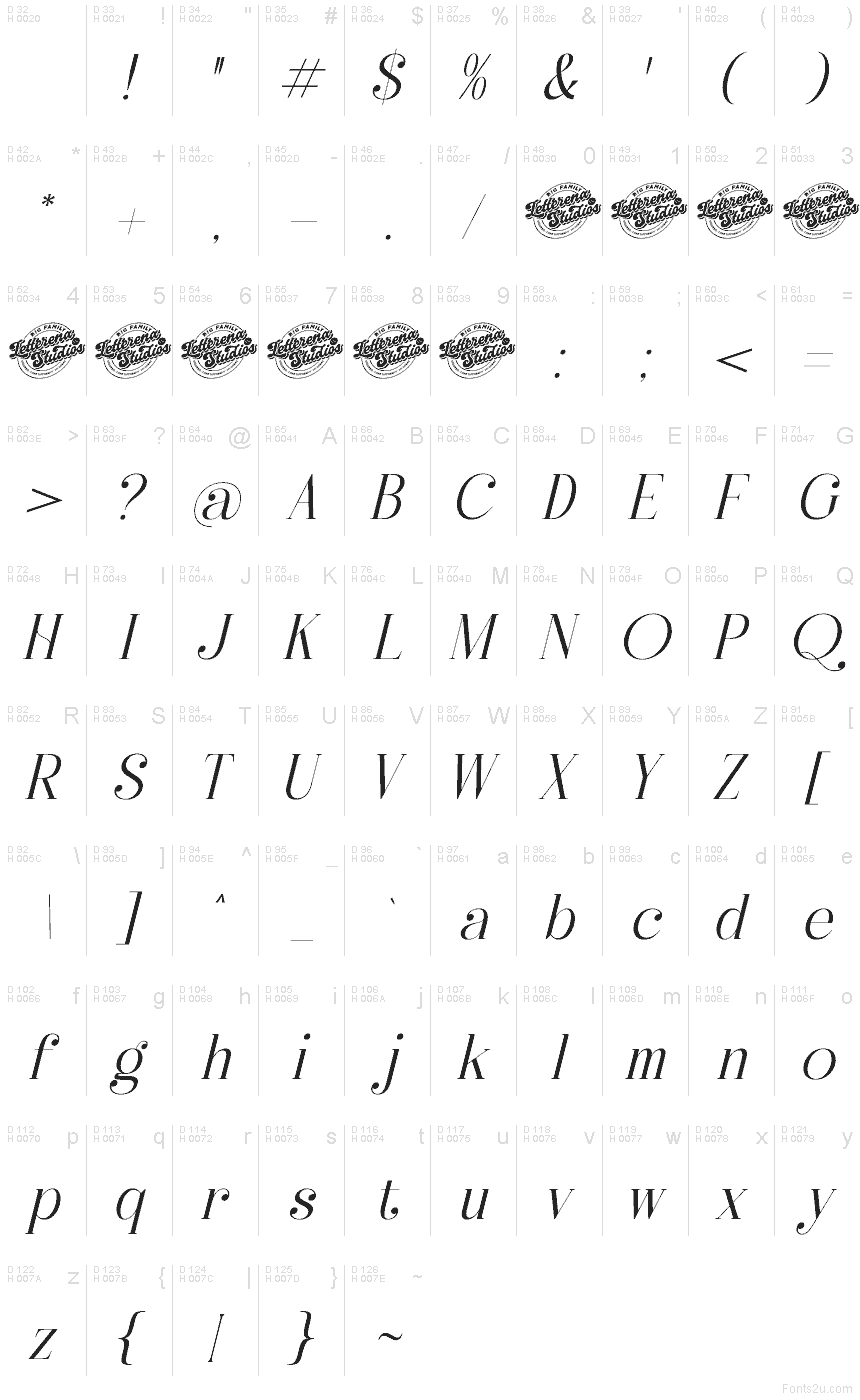
Heyanik DEMO VERSION Italic
Heyanik Italic font by Storytype Studio is a condensed serif typeface that combines sleek elegance with contemporary flair. Gentle curves and subtle flourishes give the font a modern sophistication, making it both interesting and pleasant to observe.